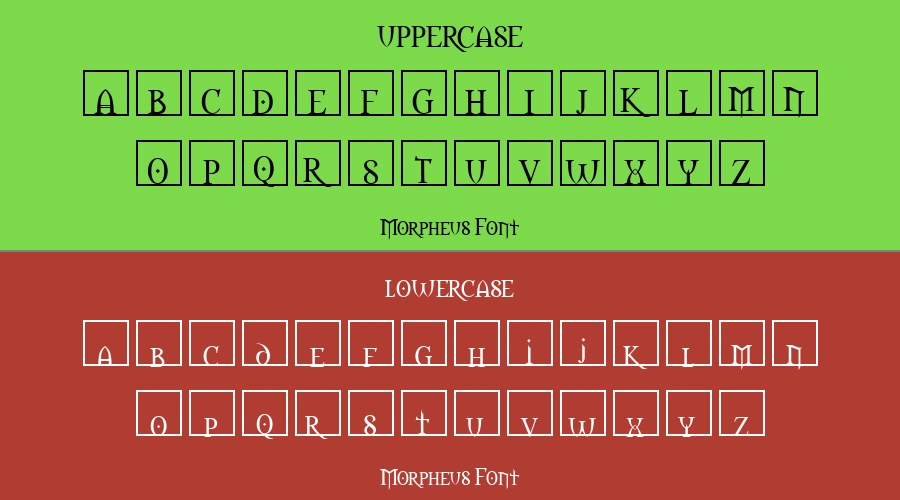
About Morpheus Font
Morpheus Font embodies typographic excellence through its masterful combination of expressive curves and professional reliability. Created for advertising headers, this typeface delivers exceptional originality and creative excellence across all applications. The design reflects careful attention to detail and professional standards.
Advanced capabilities include distinctive flourished entries and versatile proportional figures, giving designers creative control. When used in point-of-sale displays, Morpheus Font exhibits remarkable kerning accuracy. The harmonious balance between x-height and design philosophy sets this typeface apart.